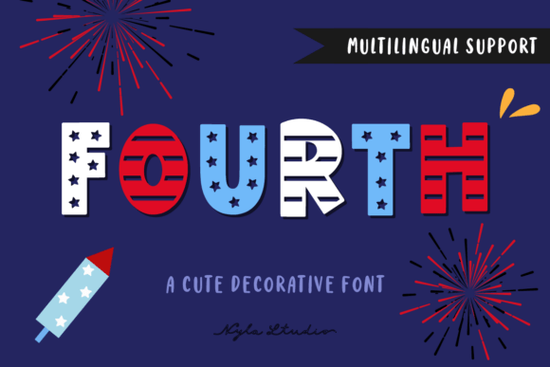
If you're looking for a friendly, patriotic decorative font that works well for holiday crafts, small business branding, or print-on-demand projects, Fourth Font is a thoughtful choice. It’s not overly bold or flashy instead, it carries a warm, hand-drawn charm inspired by the colors and spirit of the United States flag. You’ll find it especially useful around Independence Day, Veterans Day, or Memorial Day, but it also fits nicely into everyday designs like greeting cards, mugs, stickers, and even simple packaging for local shops or handmade goods.
What makes Fourth Font different from other decorative fonts?
Unlike many script or display fonts that lean heavily into vintage, grunge, or ultra-modern styles, Fourth Font balances playfulness with clarity. Its letterforms have gentle curves and subtle flags-inspired flourishes think soft stars, clean stripes in the spacing, and a relaxed rhythm that reads easily at medium sizes. It’s designed to feel approachable, not overwhelming.
Where does Fourth Font work best?
This font shines in real-world, hands-on projects not just as a “pretty download.” Here’s where users consistently get good results:
- T-shirts and apparel: Works well on both light and dark fabrics, especially when paired with simple star or stripe motifs.
- Greeting cards and invitations: Its warmth makes it great for birthday cards with a patriotic twist or even baby announcements styled with red, white, and blue.
- Stickers and decals: Clean outlines and consistent spacing help it cut cleanly on vinyl and hold up well on water bottles or laptops.
- Small business signage: Think café chalkboards, farmers’ market banners, or boutique window clings especially for shops with Americana, rustic, or community-focused branding.
- Digital illustrations: Layer it over hand-drawn maps, fireworks, or vintage-style posters without competing for attention.
It’s worth noting that while Fourth Font has personality, it’s not meant for long paragraphs or body text. Save it for headlines, quotes, labels, and short phrases where decorative fonts do their best work.
How to pair Fourth Font with other typefaces
Because it’s a display font, pairing matters. Try it with a neutral sans-serif (like Montserrat or Open Sans) for contrast and readability. For example: use Fourth Font for a headline like “Proud & Homegrown,” then switch to a clean sans for the rest of the description. That kind of balance keeps your layout friendly and functional.
You’ll also find it pairs naturally with other decorative fonts in themed bundles especially those with similar weight and x-height. If you’re building a seasonal collection (say, for July 4th or election-themed merch), mixing Fourth Font with a slightly bolder or more condensed companion font can add visual variety without confusion.
Who’s using Fourth Font right now?
We’ve seen crafters use it for hand-lettered wooden signs sold at local fairs. Print-on-demand sellers apply it to minimalist mug designs that sell steadily year after year not just during holidays. Small bakeries use it on cupcake wrappers for “Stars & Stripes” specials. Even educators have adapted it for classroom bulletin boards about U.S. history units.
It’s not a one-size-fits-all solution, but it fills a specific, practical need: a cheerful, respectful, and versatile way to express American themes without leaning into cliché or clutter.